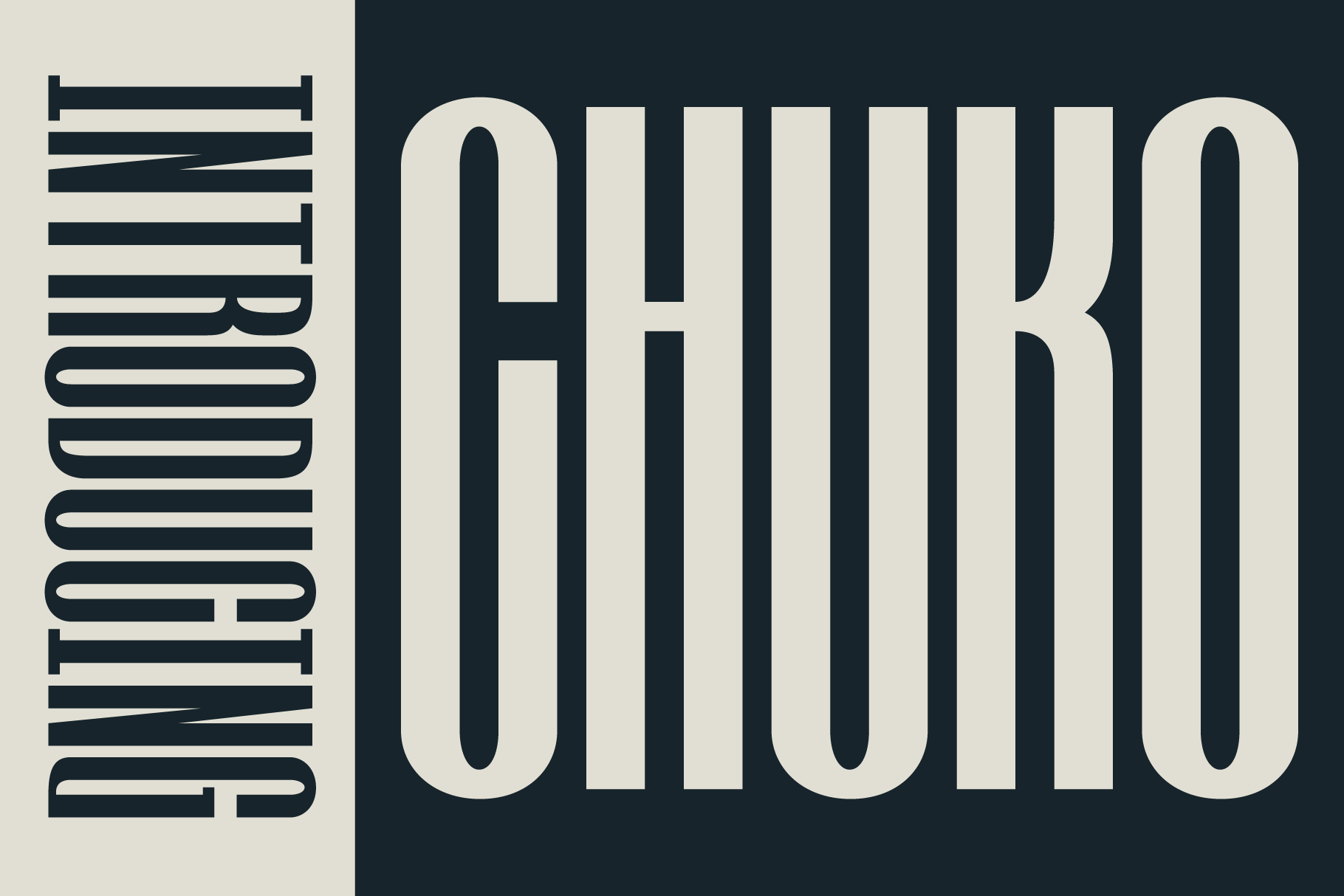
Chuko Font
Hello, friends! The 'Chuko' font is coming, a Condensed font. The retro 80s vibe immensely inspires Chuko. It's perfect for branding, logo Band, packaging, header, t-shirt design, poster, band, music, album, artwork, etc. Chuko has a unique thickness in every glyph. Thank you!